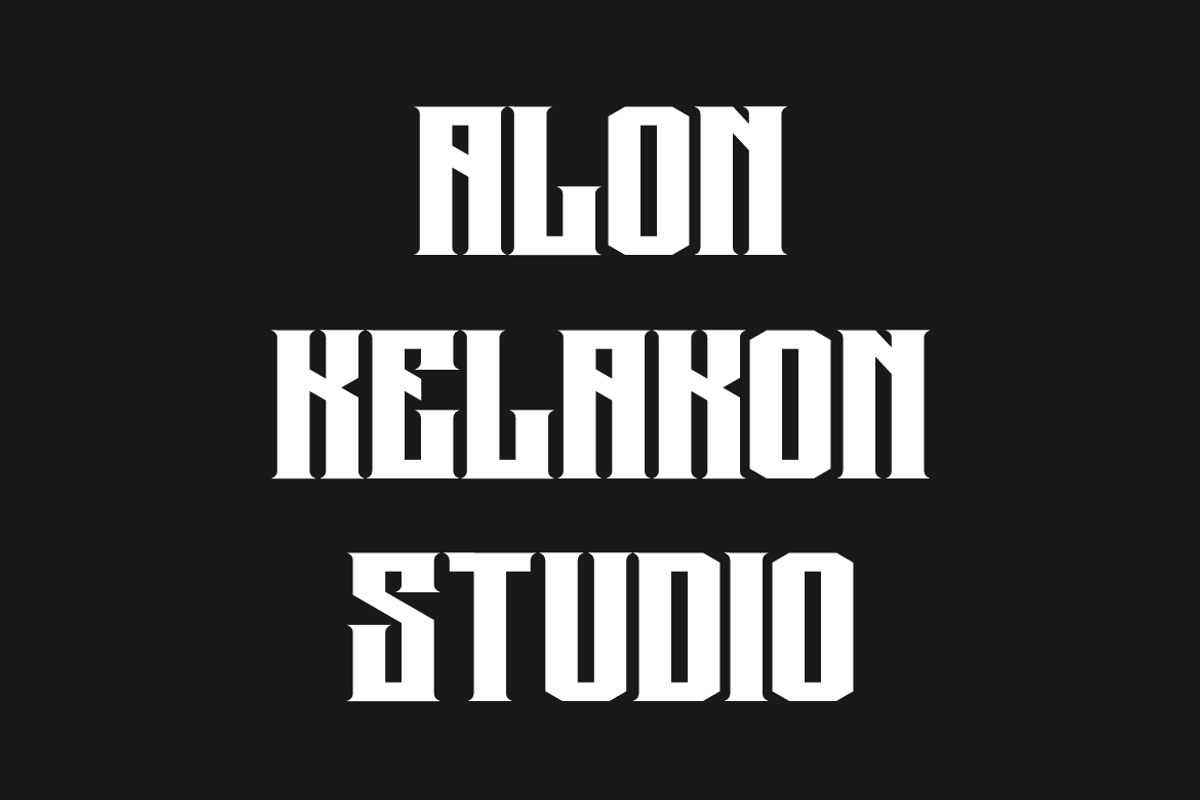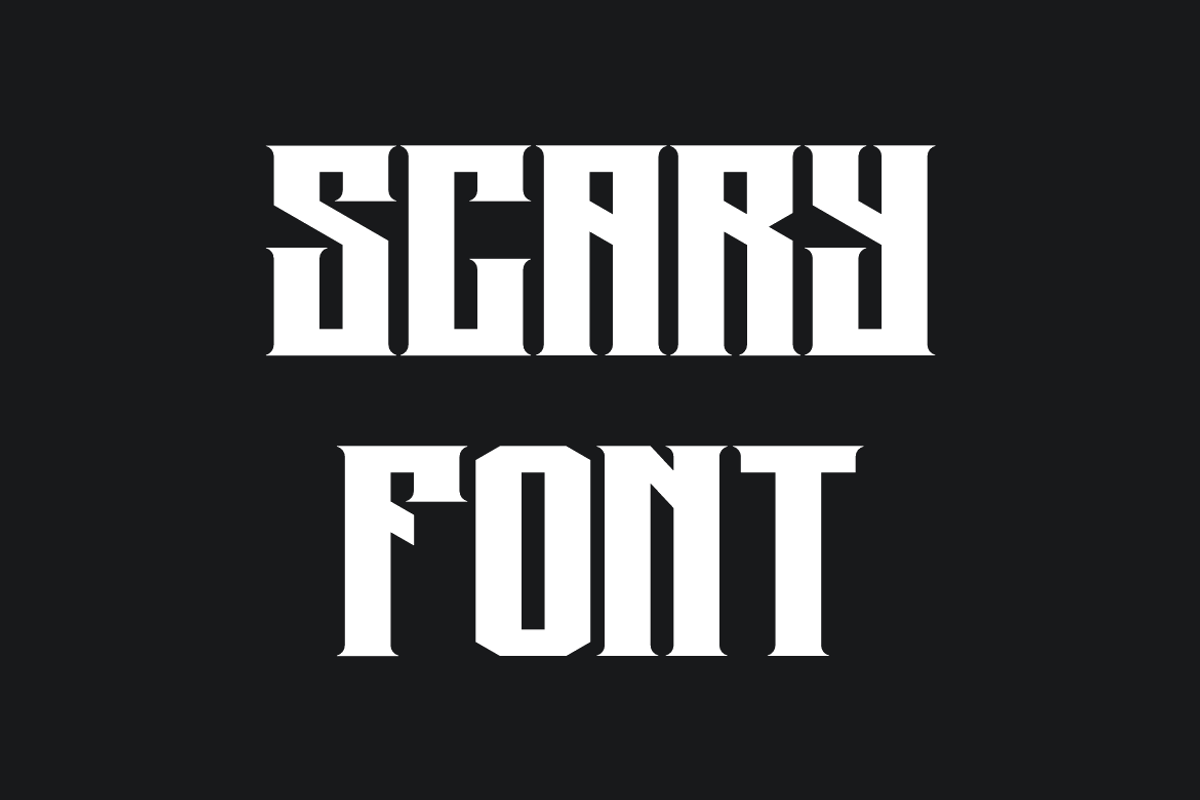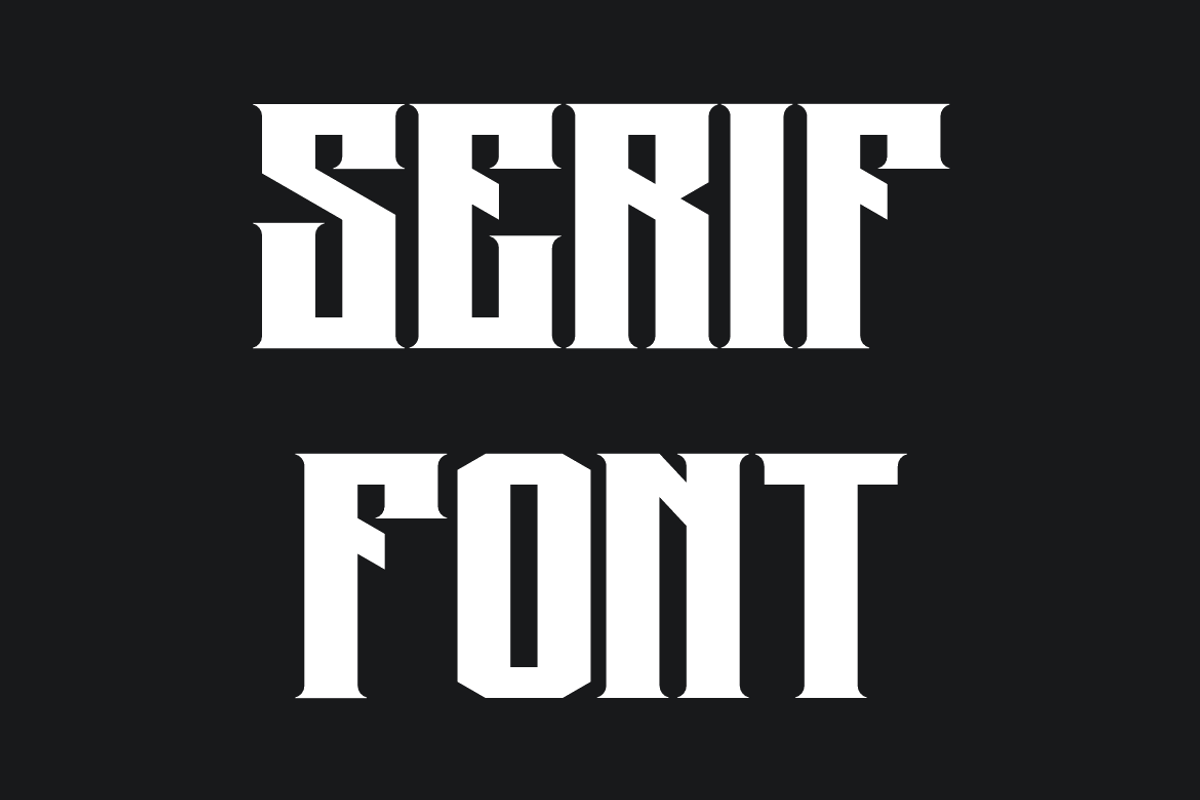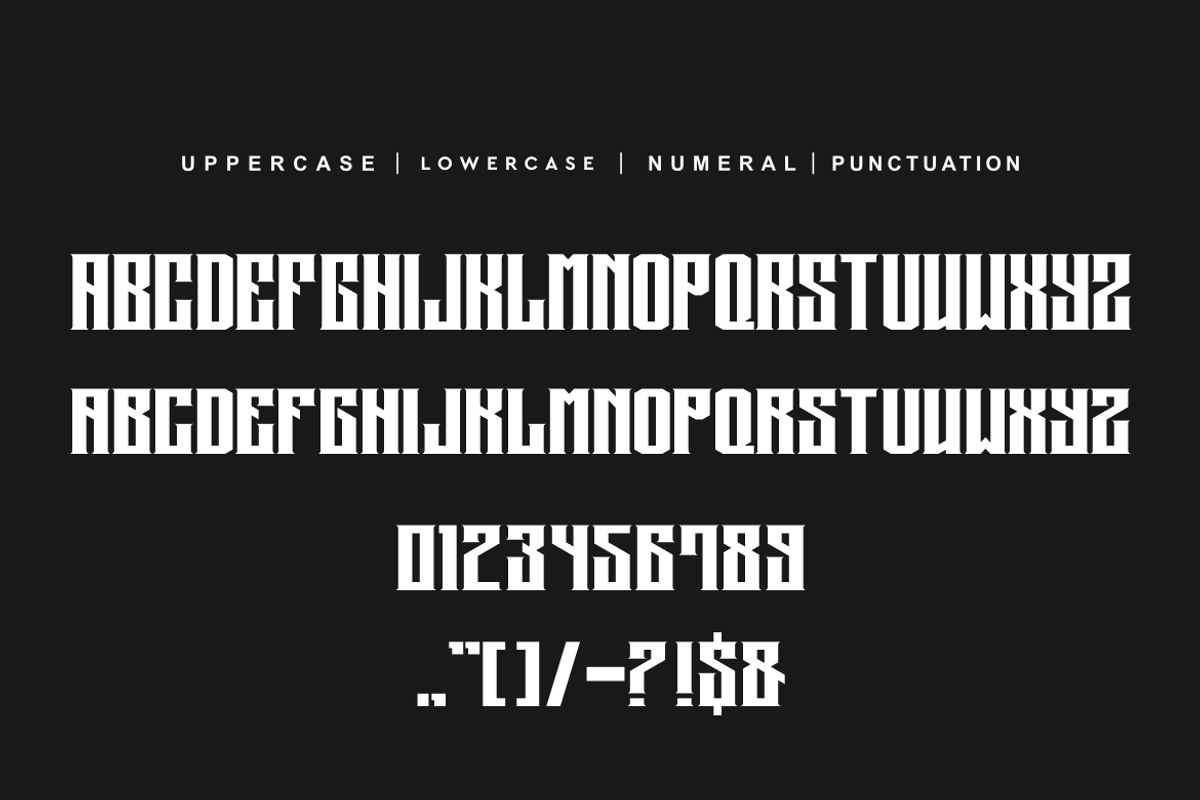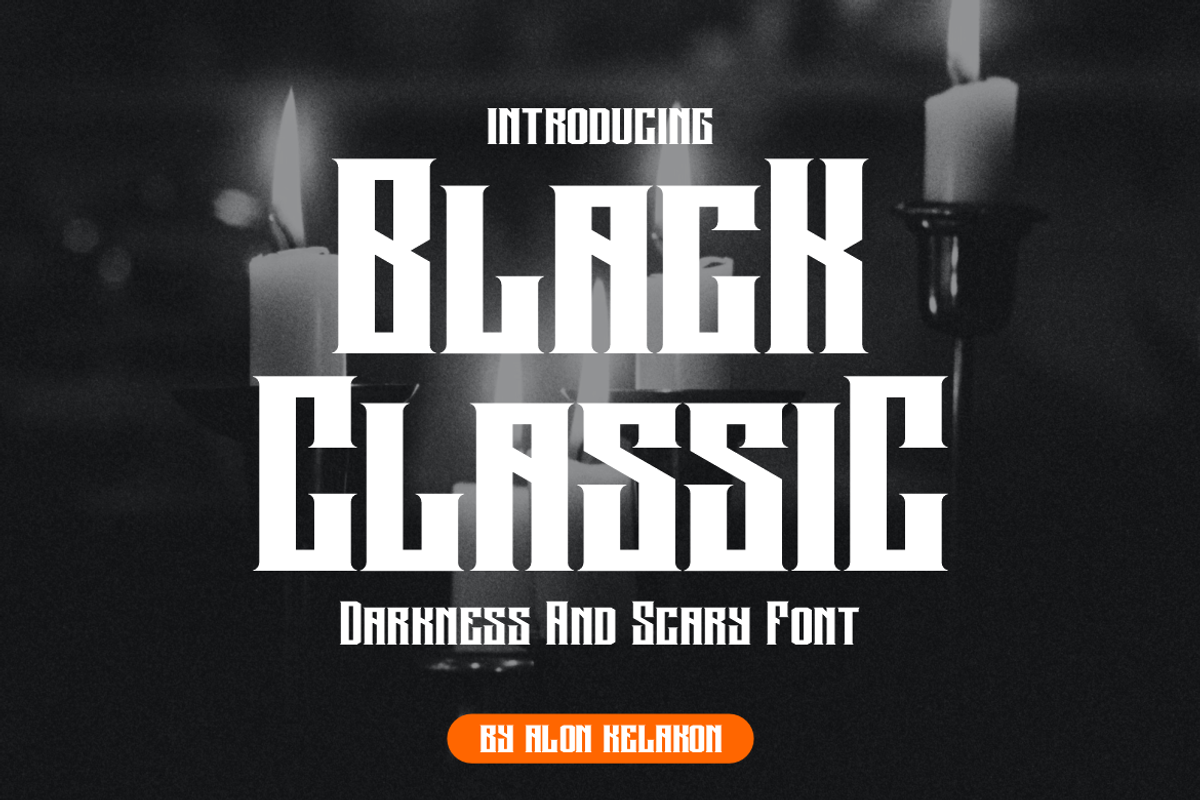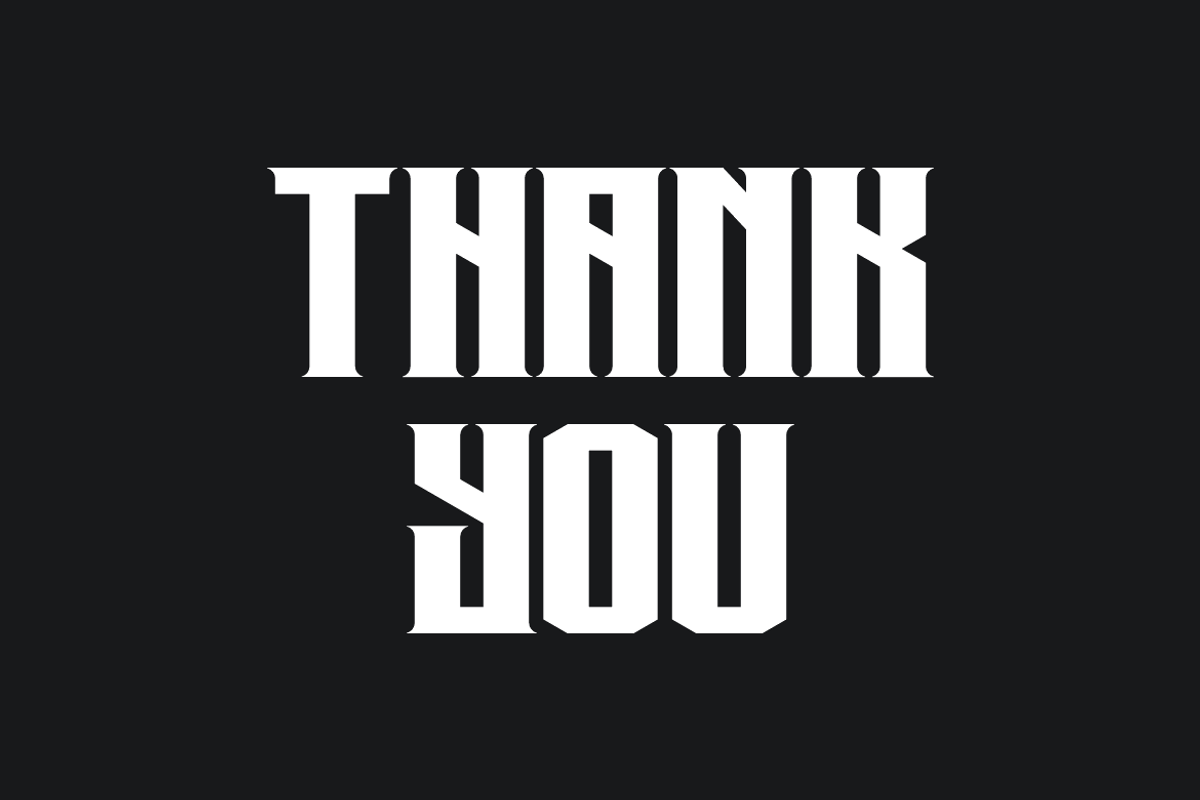
Black Classic
Black Classic Font is unique . Ready to use for your design like labeling, movie sceen, poster, movie title, gigs, album covers, logos, and much more.